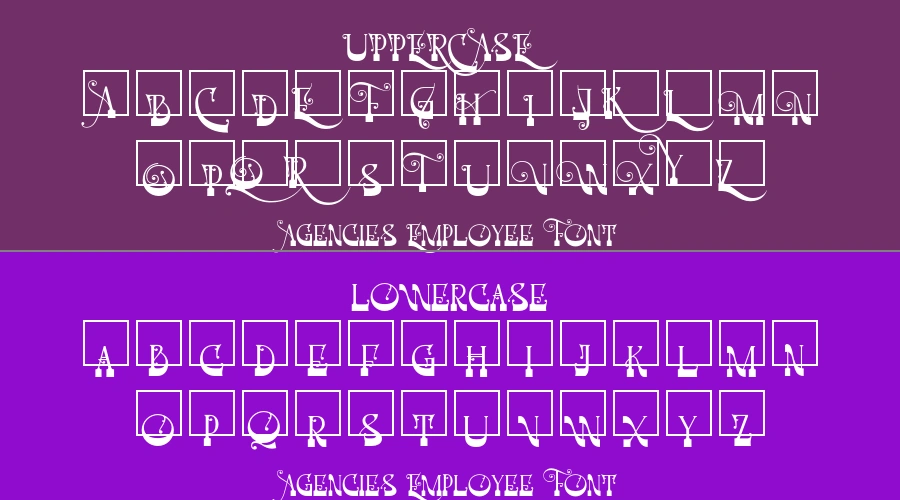
About Agencies Employee Font
Agencies Employee Font stands out for its distinctive combination of structural clarity and design consistency. Ideal for product naming, it provides the clarity and technical excellence that professional projects demand. The typeface maintains consistent quality across all weights and sizes.
Key features include refined fluid motion and practical currency signs, enhancing typographic expression. In marketing collateral applications, Agencies Employee Font demonstrates exceptional small text rendering. The descender depth and technical tradition contribute to its distinctive character and professional appeal.